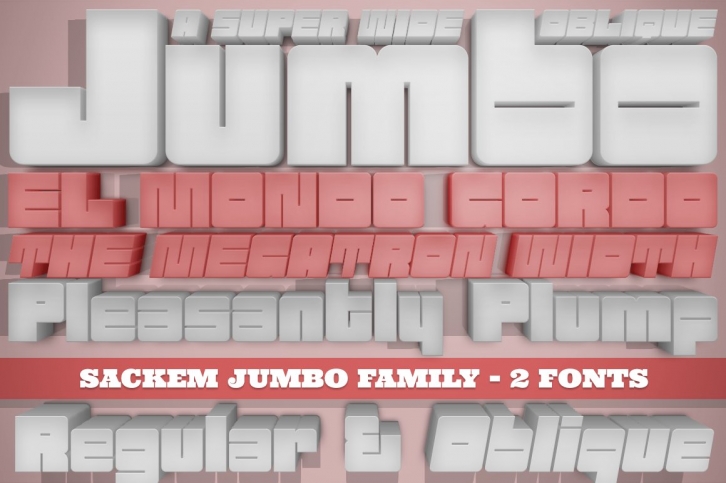
There’s just nothing quite like a heavyweight geometric typestyle with tiny counters, you just love it like the Bee Gees. Sackem started as a digitization of a singular film typeface called Benman Jumbo by Lettergraphics. From there, this mechanical typeface was expanded into a giant family of playful widths and obliques: from the condensed “Slim†style to the original “Jumbo†style. See other listings for more weights/widths.